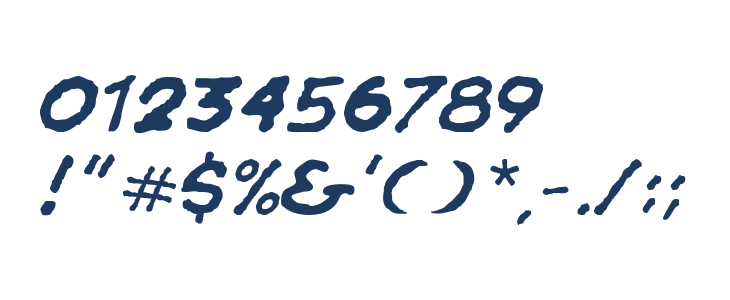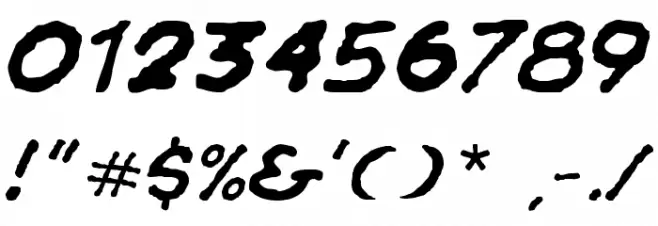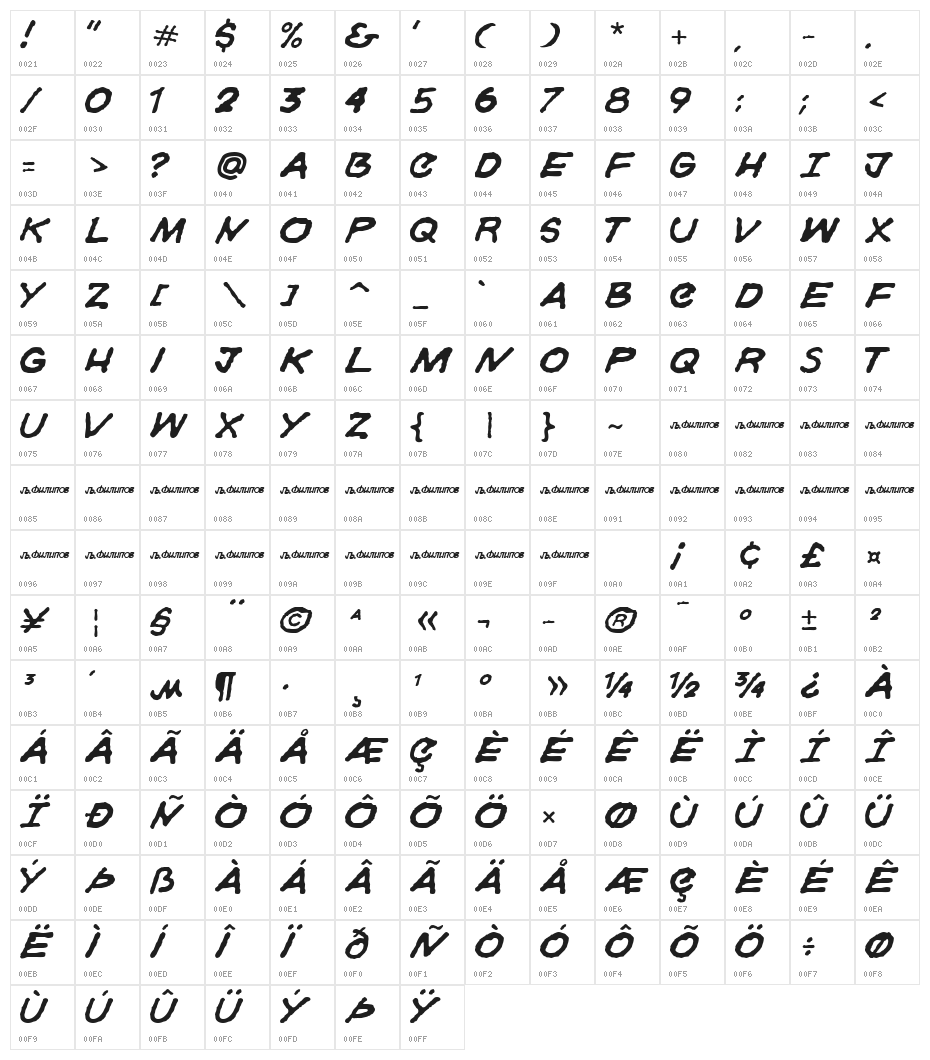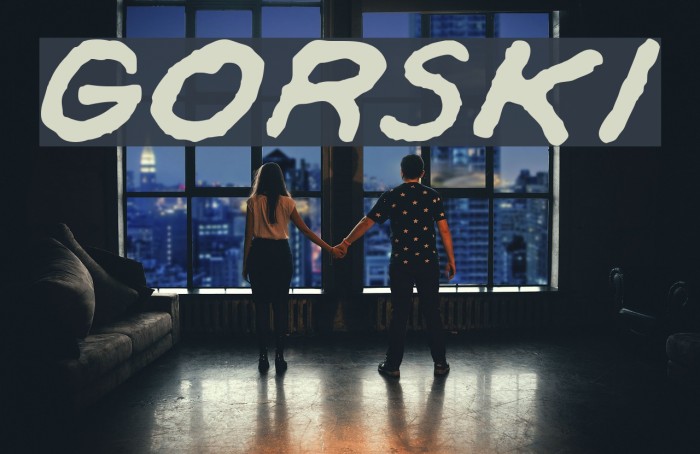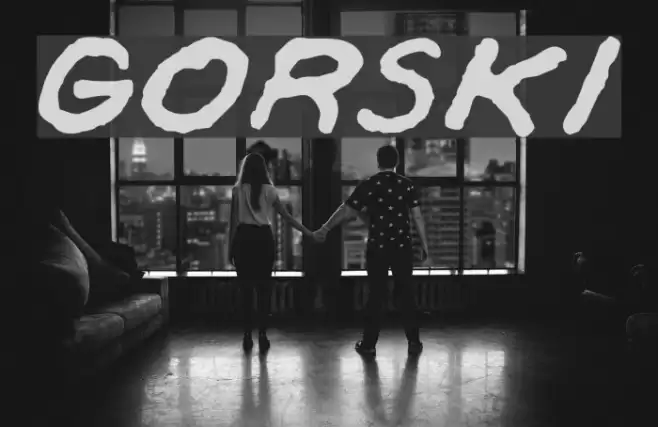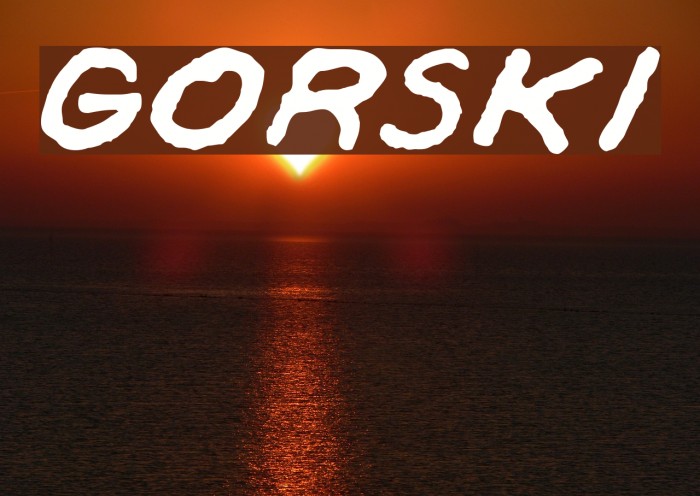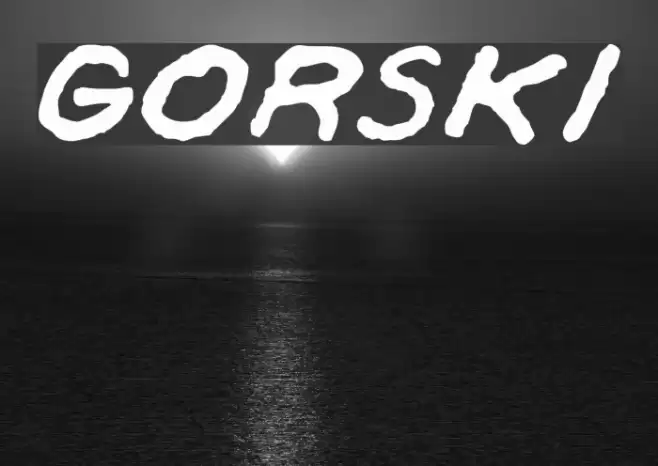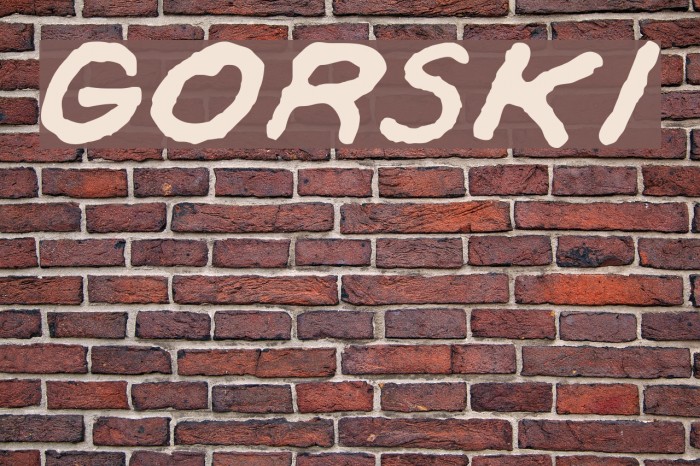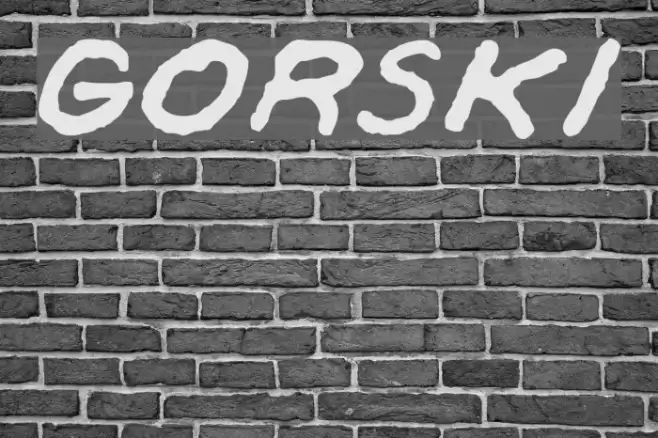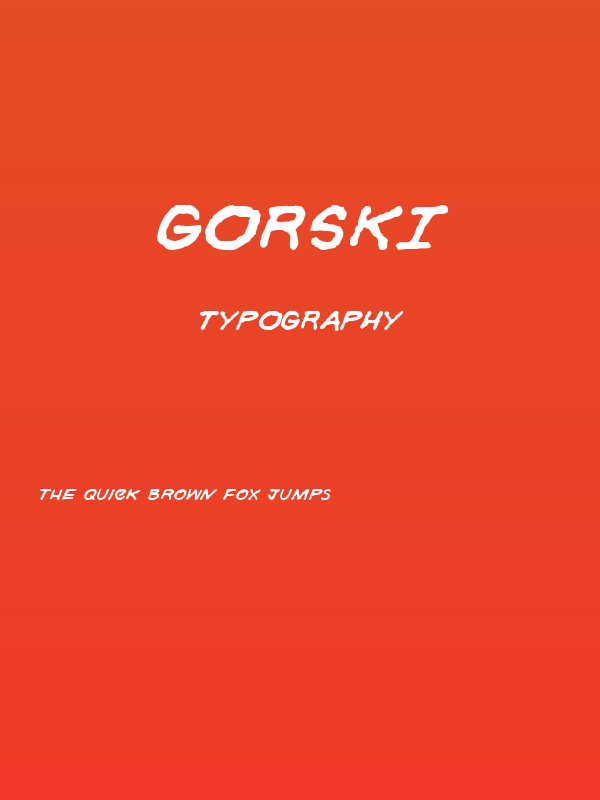
Gorski Font
Gorski Description
This font features a bold and dynamic script style with a handwritten appearance. The characters are slightly slanted, giving a sense of motion and fluidity. The strokes are thick and consistent, creating a strong visual impact. The uppercase and lowercase letters maintain a cohesive look, while the numbers and special characters blend seamlessly with the overall design. The font's energetic and informal style makes it suitable for creative and expressive projects.